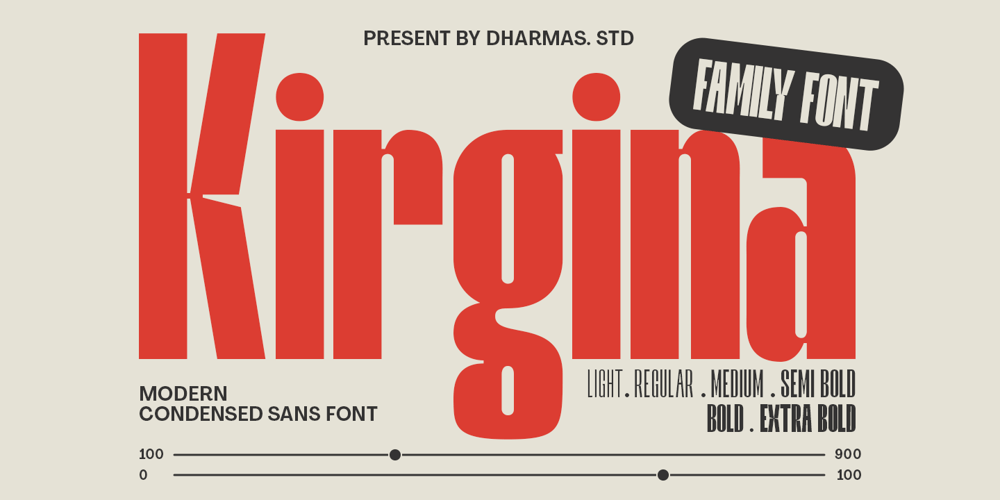
Kirgina Font Family was designed by Ahmad Jamaludin and published by Ahmad Jamaludin. Kirgina contains 6 styles and family package options. Introducing Kirgina! – An ultra-condensed sans serif with a style that is very different from the othersKirgina is a condensed sans-serif typeface created to be used for bold titles with distinctive shapes in a display font way to make it legible for contemporary use. Come with single-weight, legible, and expressive shapes. Its glyph catalog provides an easy-to-compose system for Latin languages with high x-height and tight line spacing.Kirgina comes in 6 font styles (Light, Regular, Medium, SemiBold, Bold, ExtraBold), Its weight is superior in posters, social media, headlines, magazine titles, clothing, large print formats – and wherever you want to be seen. Inspired by the style of design that is currently popular, this is the answer to all the needs of every idea that you will pour into this modern era.What’s Included? Kirgina Main Files Family Font (Light, Regular, Medium, SemiBold, Bold, ExtraBold) Unique Gylph Letters Instructions (Access special characters in all apps, even in Cricut Design) Accessible in Adobe Illustrator, Adobe Photoshop, Microsoft Word even Canva! PUA Encoded Characters. Fully accessible without additional design software Language Support: Danish, English, Estonian, Filipino, Finnish, French, Friulian, Galician, German, Gusii, Indonesian, Irish, Italian, Luxembourgish, Norwegian Bokmål, Norwegian Nynorsk, Nyankole, Oromo, Portuguese, Romansh, Rombo, Spanish, Swedish, Swiss-German, Uzbek (Latin)Have a great day!Dharmas Studio